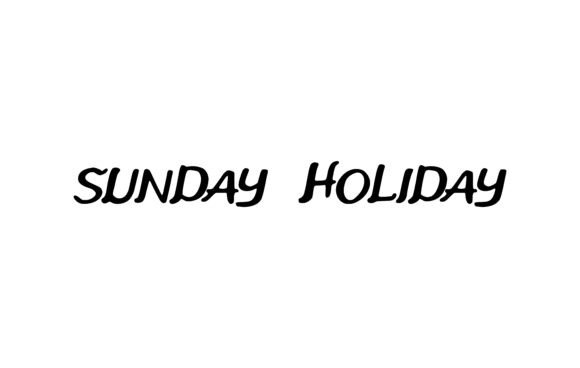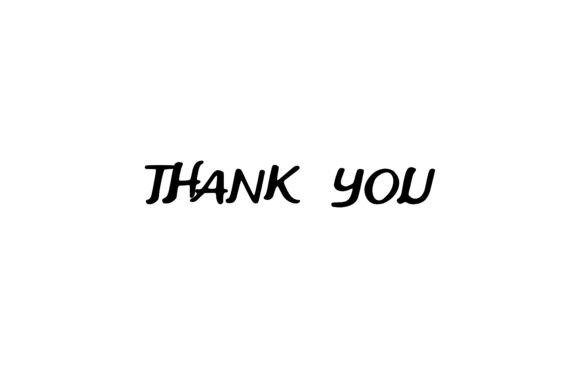
The Artisanal Charm of ArtisaGems Font
As a designer, I’ve had my fair share of font hunting struggles. I recall working on a wedding invitation project, determined to find the perfect handwritten font that exuded romance and elegance. After hours of scrolling through font libraries, I stumbled upon ArtisaGems font. It was love at first sight! With its authentic handwritten feel and romantic touch, I knew I had found the perfect fit. In this article, I’ll share my experience with ArtisaGems font, its features, and how to make the most of it in your designs.
- ✨ Legibility: ArtisaGems font is surprisingly legible, making it perfect for both title and body text.
- ✅ Romantic touch: The font’s handwritten feel adds a touch of warmth and elegance to any design.
- 💫 Versatility: It can be used for a wide range of designs, from magazine headlines to social media graphics, branding, wedding invitations, and more.
While ArtisaGems font is exceptional, there are a few minor quirks to consider:
- 🤔 Limited character set: As with any font, some special characters or glyphs might be limited or require additional installation.
- ⚠️ Kerning issues: As with any handwritten font, some kerning issues may arise, especially when using all-caps or mixing font sizes.
The Story Behind ArtisaGems Font
ArtisaGems font was designed with the intention of creating a unique, handmade feel that would bring a touch of warmth and personality to any design. The designer aimed to craft a font that would be both elegant and approachable, perfect for a wide range of creative projects.
Q: What type of projects is ArtisaGems font best suited for?
A: ArtisaGems font is versatile and can be used for various projects, including magazine headlines, social media graphics, branding, wedding invitations, and more.
Q: Does ArtisaGems font come with OpenType features?
A: Yes, ArtisaGems font includes OpenType features, such as stylistic alternates, glyphs, and ligatures, which can enhance your typography.